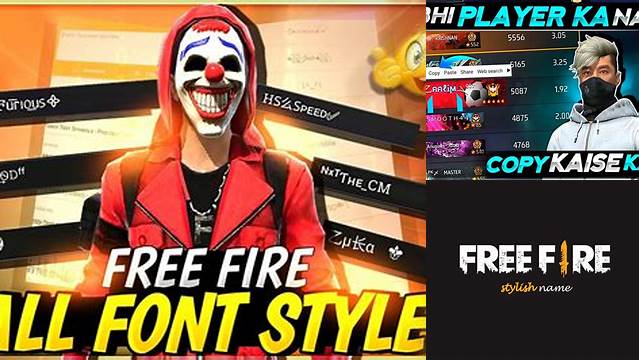
S Name Font Generator For Free Fire: Cool Styles!
Hey guys! Are you looking to spice up your Free Fire profile and stand out from the crowd? One of the coolest ways to do that is by using stylish fonts, especially when it comes to your in-game name. A unique and eye-catching name can make you look like a pro and add a personal touch to your gaming persona. That's where the S Name Style Font Generator for Free Fire comes in! In this article, we'll dive deep into why stylish fonts matter, how to use these generators, and some tips to create the perfect Free Fire name with the letter "S". So, buckle up and let's get started on making your Free Fire name legendary!
Why a Stylish Name Matters in Free Fire
In the fast-paced world of Free Fire, first impressions matter. Your in-game name is the first thing other players see, and it can significantly influence how they perceive you. A generic or plain name might not grab attention, but a stylish name using unique fonts can instantly make you look like a seasoned player. Think of it as your brand – you want it to be memorable, cool, and reflective of your gaming skills. Imagine encountering a player with a name like "SavageSlayer" in a regular font versus "ֆǟʋǟɢɛֆʟǟʏɛʀ" in a stylish font – which one would you remember more? The latter, right? That's the power of a stylish name. Not only does it look cool, but it also shows that you've put thought and effort into your gaming identity. It's a way to express your personality and set yourself apart in a sea of players. Plus, a stylish name can boost your confidence and make you feel more immersed in the game. When you feel good about your in-game persona, you're more likely to play better and enjoy the experience even more. So, if you're serious about Free Fire, investing a little time in creating a stylish name is definitely worth it. It's a small change that can make a big difference in how you're perceived and how much you enjoy the game.
Understanding Font Generators and How They Work
Okay, so you're convinced that a stylish name is the way to go, but how do you actually create one? That's where font generators come in handy! These are super cool online tools that allow you to transform regular text into a variety of stylish fonts. They work by using special Unicode characters, which are basically symbols that look like letters but are actually different characters recognized by the game. Free Fire, like many other games and platforms, supports these Unicode characters, allowing you to use a wide range of fonts and symbols in your name. Font generators are incredibly easy to use. You simply type in your desired name, and the generator will instantly display it in a plethora of different fonts. You can then browse through the options, choose the one you like best, and copy it to your clipboard. From there, you can paste it directly into the Free Fire name change field. Most font generators also offer a variety of symbols and decorations that you can add to your name, such as stars, hearts, wings, and other cool icons. This allows you to further customize your name and make it truly unique. The best part is that most of these font generators are completely free to use, so you can experiment with different styles and combinations without spending any money. However, it's worth noting that some fonts and symbols might not display correctly on all devices or in all games. Free Fire is generally pretty good at supporting Unicode characters, but it's always a good idea to test your name out to make sure it looks the way you want it to before finalizing it. So, go ahead and explore the world of font generators – you'll be amazed at the creative possibilities they offer!
Top S Name Style Font Generators for Free Fire
Alright, let's get down to the nitty-gritty and talk about some of the best S Name Style Font Generators you can use for Free Fire. There are tons of options out there, but we've rounded up a few of our favorites to get you started. First up is LingoJam. LingoJam is a classic font generator that's super user-friendly. You just type in your name, and it instantly generates a bunch of different font styles for you to choose from. It's great for beginners because it's so simple to use, and it offers a wide variety of font options. Another popular choice is Cool Symbol. Cool Symbol is more than just a font generator – it's a whole treasure trove of symbols, emojis, and other cool characters that you can add to your name. This is perfect if you want to go beyond just changing the font and add some extra flair to your Free Fire profile. If you're looking for something a little more advanced, Nickfinder is a fantastic option. Nickfinder is specifically designed for creating gaming names, and it offers a ton of customization options. You can generate random names, combine different font styles, and even add prefixes and suffixes to your name. It's a great tool for serious gamers who want to create a truly unique identity. And last but not least, we have Fancy Text Guru. Fancy Text Guru is another excellent font generator that offers a clean and intuitive interface. It's easy to browse through the different font styles, and it also has a built-in symbol library. No matter which generator you choose, the key is to experiment and have fun! Try out different fonts, symbols, and combinations until you find the perfect style for your Free Fire name. Remember, your name is your brand, so make it count!
Step-by-Step Guide to Creating an S Name Style Font
Okay, so you've got the tools, now let's walk through the process of actually creating an S name style font for your Free Fire profile. Don't worry, it's super easy! Here's a step-by-step guide to get you started: Step 1: Choose Your Generator First, you'll want to pick a font generator that you like. We've already mentioned a few great options like LingoJam, Cool Symbol, Nickfinder, and Fancy Text Guru. Browse through them and choose the one that seems most user-friendly and offers the types of fonts and symbols you're looking for. Step 2: Enter Your Name or Desired Text Once you've chosen your generator, the next step is to enter your name or the text you want to stylize. Since we're focusing on S names, you might type in something like "Savage," "Shadow," or any other name that starts with S that you like. Step 3: Browse the Font Options Now comes the fun part! The generator will display your text in a variety of different fonts. Scroll through the options and see which ones catch your eye. Pay attention to the overall style and how well it fits your personality and gaming persona. Step 4: Customize Your Name (Optional) Many font generators also allow you to add symbols, decorations, and other special characters to your name. This is a great way to make your name even more unique and eye-catching. Experiment with different symbols and see what looks good. Step 5: Copy Your Stylish Name Once you've found a font style and any symbols you like, it's time to copy your stylish name. Simply click the "Copy" button or highlight the text and press Ctrl+C (or Cmd+C on a Mac) to copy it to your clipboard. Step 6: Paste Your Name into Free Fire Now, head over to Free Fire and go to your profile. Look for the option to change your name (you might need a Rename Card). Paste your stylish name into the name change field, and voila! You've got a brand new, awesome-looking name. Step 7: Test and Enjoy! After you've changed your name, it's always a good idea to hop into a game and see how it looks to other players. Make sure the font and symbols are displaying correctly. If everything looks good, then you're all set! Enjoy your stylish new name and show it off on the battlefield.
Creative S Name Ideas for Free Fire
Okay, you've learned how to generate stylish fonts, but what if you're stuck on coming up with a cool name in the first place? Don't worry, we've got you covered! Here are some creative S name ideas for Free Fire to spark your imagination: * Names that Emphasize Skill: Start by brainstorming words that convey skill and prowess in gaming. Think about words like Savage, Slayer, Sniper, Striker, or Sharp. These names instantly give off the impression that you're a skilled player. You can then combine these words with other elements to make them even more unique. For example, "SavageGamer," "EliteSlayer," or "SharpShooter" are all great options. * Names that Reflect Personality: Your in-game name is also a chance to express your personality. If you're a stealthy player, you might choose a name like Shadow, Silent, or Sneaky. If you're more of a bold and aggressive player, you could go with something like Storm, Smash, or Steel. Think about what kind of player you are and choose a name that reflects that. * Names with a Mystical or Fantasy Theme: If you're into fantasy or mythical themes, you can draw inspiration from those realms. Names like Specter, Seraph, Sylvan, or Scorpio (if you're into astrology) can add a touch of mystery and intrigue to your profile. * Combining S with Numbers or Symbols: To make your name even more unique, try combining the letter S with numbers or symbols. For example, "S1lentKiller," "S_Shadow," or "S⚡️triker" are all creative and eye-catching options. Just be mindful of the character limits in Free Fire and make sure your name is still readable. * Using Prefixes and Suffixes: Prefixes and suffixes can also add a nice touch to your name. You can use prefixes like "Pro," "Elite," or "Legendary," and suffixes like "Gamer," "Player," or "Slayer." For example, "ProSlayer," "EliteSniper," or "LegendarySavage" are all strong and memorable names. Remember, the best name is one that you like and that represents you. Don't be afraid to experiment and try out different combinations until you find the perfect fit. And once you've got your name, use a font generator to make it look even cooler!
Tips for Choosing the Perfect S Name Style Font
Choosing the perfect S name style font can feel a little overwhelming with so many options available, but don't worry, we're here to help! Here are some tips to guide you in making the best choice for your Free Fire name: * Consider Your Gaming Style: Your font should reflect your gaming style and personality. If you're an aggressive player who likes to be in the thick of the action, a bold and edgy font might be a good choice. Something like a sharp, angular font or one with a slightly aggressive slant can convey that intensity. On the other hand, if you prefer a more stealthy and strategic approach, a sleek and subtle font might be more fitting. Think about fonts that are clean, modern, and a little mysterious. * Readability is Key: While it's tempting to go for the most elaborate and unique font, make sure your name is still easy to read. A name that's too stylized or cluttered can be difficult for other players to decipher, which defeats the purpose of having a stylish name in the first place. Choose a font that strikes a balance between style and readability. You want it to stand out, but you also want people to be able to recognize your name quickly. * Test Different Fonts in Game: What looks good on a font generator might not always look the same in Free Fire. The game's interface and font rendering can sometimes affect how a font appears. It's always a good idea to try out a few different fonts in the game itself to see how they look. Change your name temporarily (if you have a Rename Card) and hop into a match to see how your name displays to other players. This will give you a better sense of which fonts work best. * Don't Overdo It with Symbols: Symbols can add a nice touch to your name, but too many can make it look cluttered and unprofessional. Use symbols sparingly and strategically. A well-placed symbol or two can enhance your name, but a name that's overloaded with symbols can be distracting and difficult to read. * Check for Compatibility: While Free Fire generally supports a wide range of Unicode characters, some fonts and symbols might not display correctly on all devices or in all regions. Before you commit to a name, it's a good idea to ask your friends or teammates to check how your name looks on their devices. This will help you ensure that your name is displaying correctly for everyone. * Think About the Overall Aesthetic: Your font should complement your name and the overall vibe you're going for. If you have a cool and edgy name, a sleek and modern font might be a good fit. If you have a more whimsical or playful name, a fun and quirky font could be a better choice. Consider the overall aesthetic you're trying to create and choose a font that aligns with that. By keeping these tips in mind, you'll be well on your way to choosing the perfect S name style font for your Free Fire profile. Remember, your name is your identity in the game, so make it count! Have fun experimenting with different styles and find one that truly represents you.
Conclusion: Level Up Your Free Fire Identity with a Stylish S Name Font
So there you have it, guys! You're now equipped with all the knowledge you need to create a killer S name style font for your Free Fire profile. From understanding the importance of a stylish name to using font generators and coming up with creative name ideas, you're ready to level up your gaming identity. Remember, your in-game name is your brand – it's how other players will recognize you and remember you. A stylish name not only looks cool but also shows that you've put thought and effort into your gaming persona. It's a way to express yourself, stand out from the crowd, and make a lasting impression. So, take the time to explore different font styles, symbols, and combinations. Experiment with various font generators and don't be afraid to get creative. Use the tips we've shared to choose a font that reflects your gaming style, is easy to read, and looks great in the game. And most importantly, have fun with it! Creating a stylish name should be an enjoyable process. Let your personality shine through and choose a name that you're proud to show off on the battlefield. With a little effort, you can transform your Free Fire name from ordinary to extraordinary. So go ahead, create that perfect S name style font, and let your gaming legend begin!